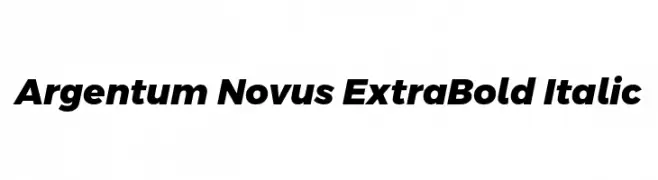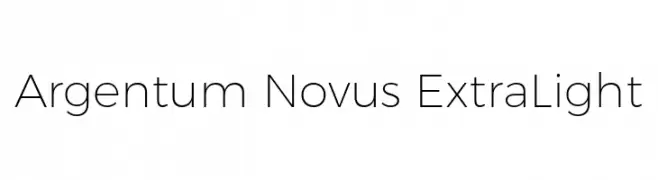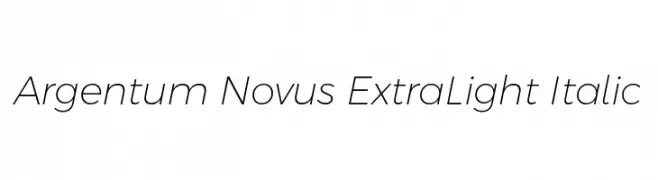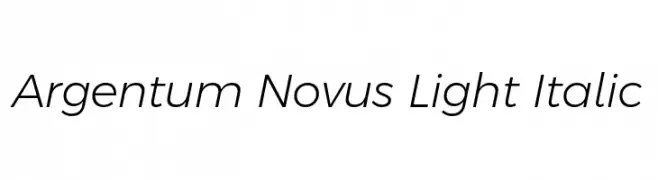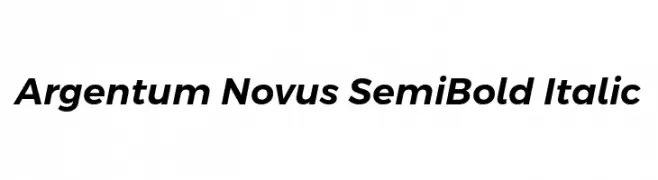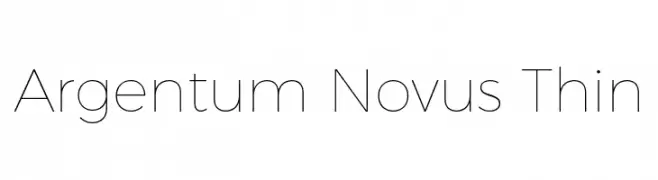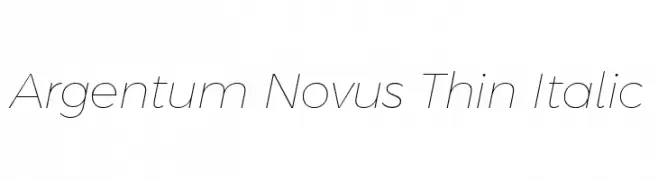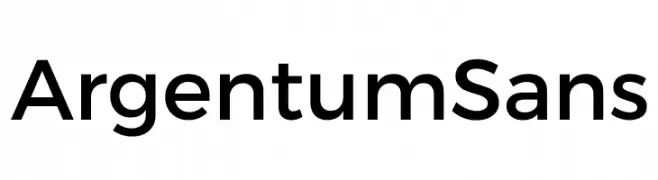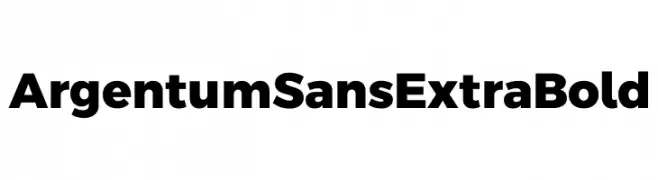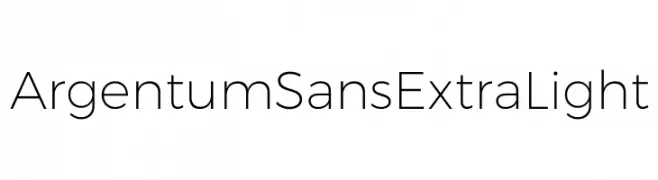
A modern sans-serif font with geometric shapes and uniform strokes.
A bold, modern font with thick strokes and a strong presence.
A bold, italicized font with thick strokes and dynamic slant.
A bold, modern sans-serif font with clean, geometric lines.
A bold and italic font with a modern, dynamic style.
A bold, modern typeface with thick strokes and excellent legibility.
A bold, italic font with a modern and dynamic style.
A modern, extra-light sans-serif font with geometric shapes and smooth curves.
A sleek, modern italic font with a light weight and elegant style.
A modern, italic sans-serif font with clean lines and a dynamic style.
A clean, modern font with a minimalist and uniform design.
A sleek, modern, light italic font with smooth curves and balanced spacing.
A modern sans-serif font with clean lines and balanced proportions.
A modern, italic sans-serif font with medium weight and normal spacing.
A modern, semi-bold sans-serif font with clean lines and balanced proportions.
A modern, semi-bold italic font with medium contrast and a sleek design.
A sleek, modern font with thin lines and balanced spacing.
A sleek, thin, and italicized font with a modern and minimalist design.
A modern, geometric sans-serif font with clean lines and uniform strokes.
A modern, medium-weight sans-serif italic font with clean lines and a slightly condensed form.